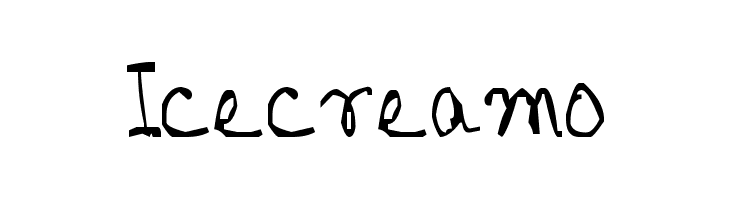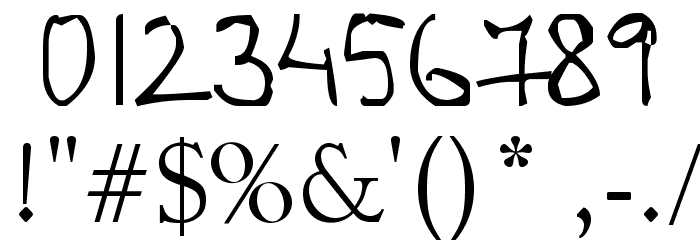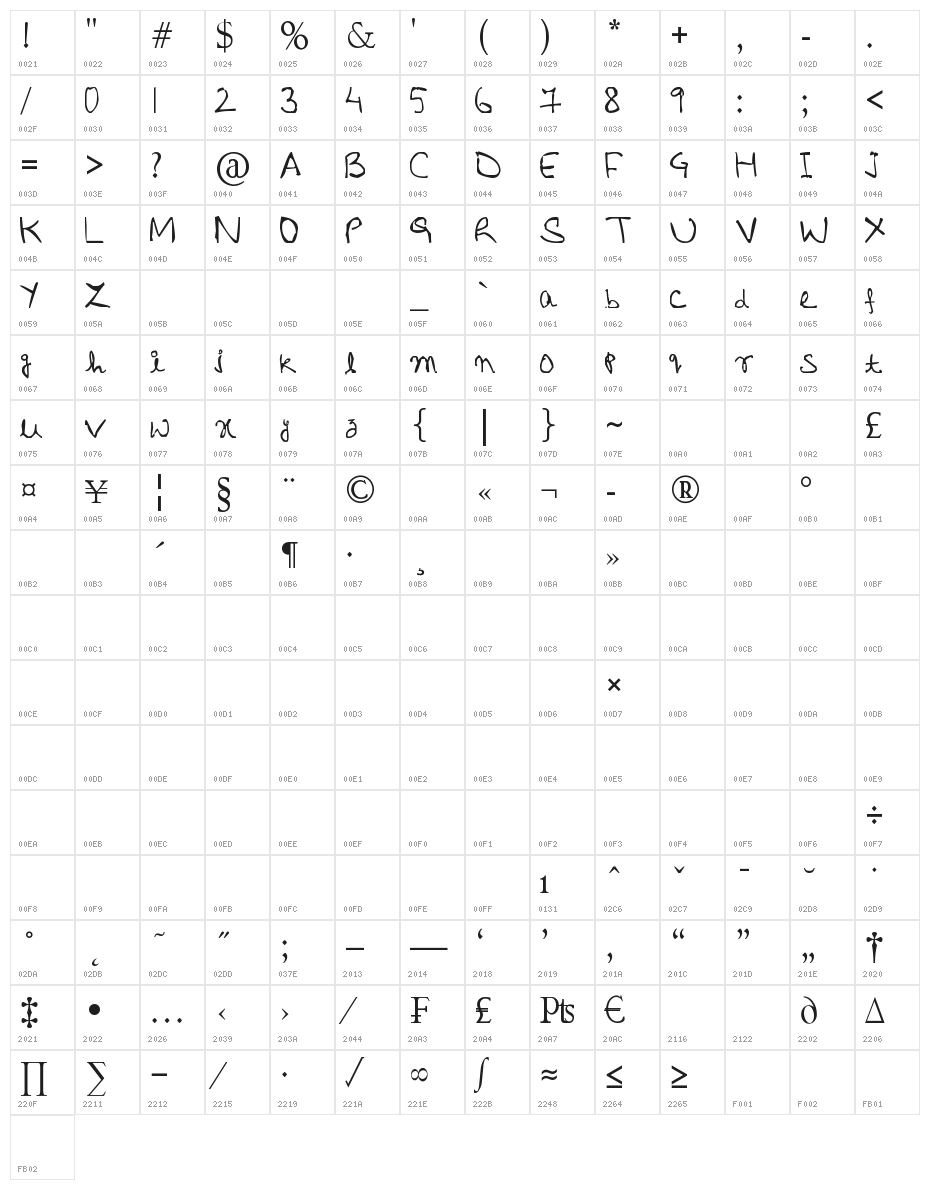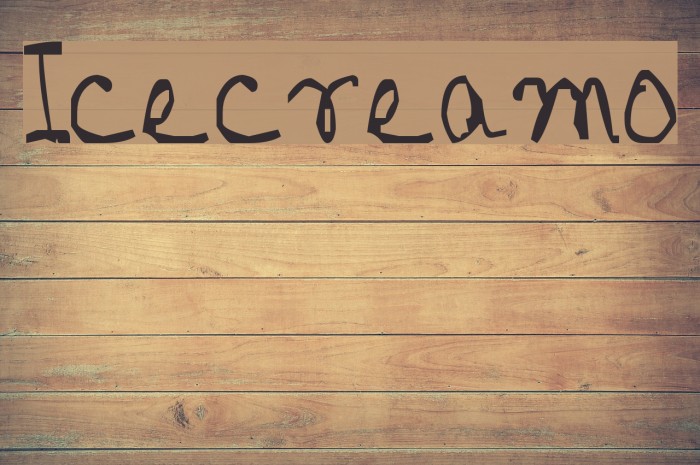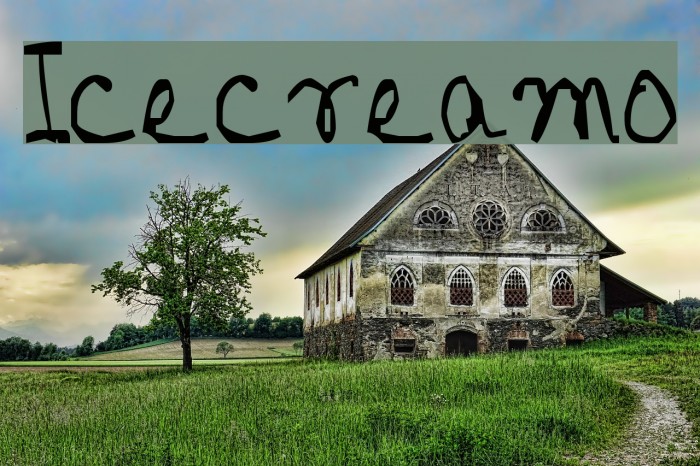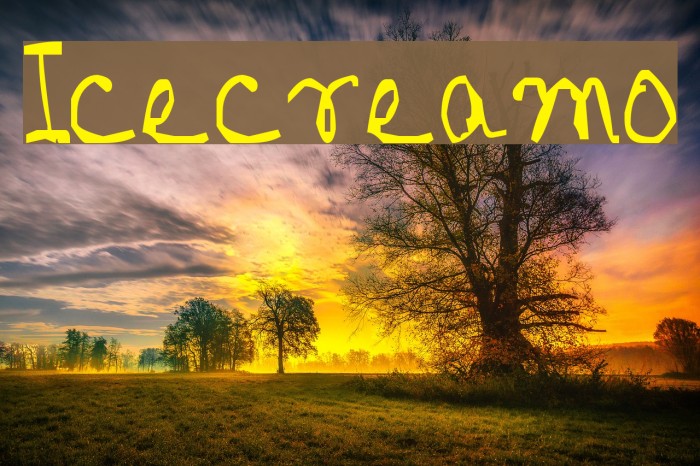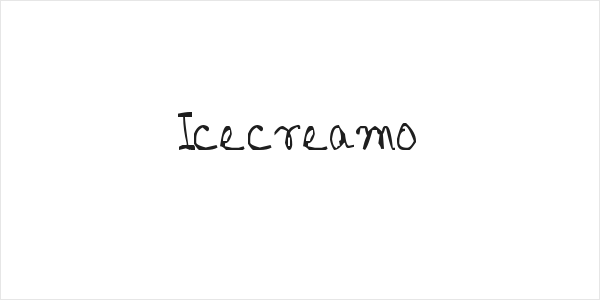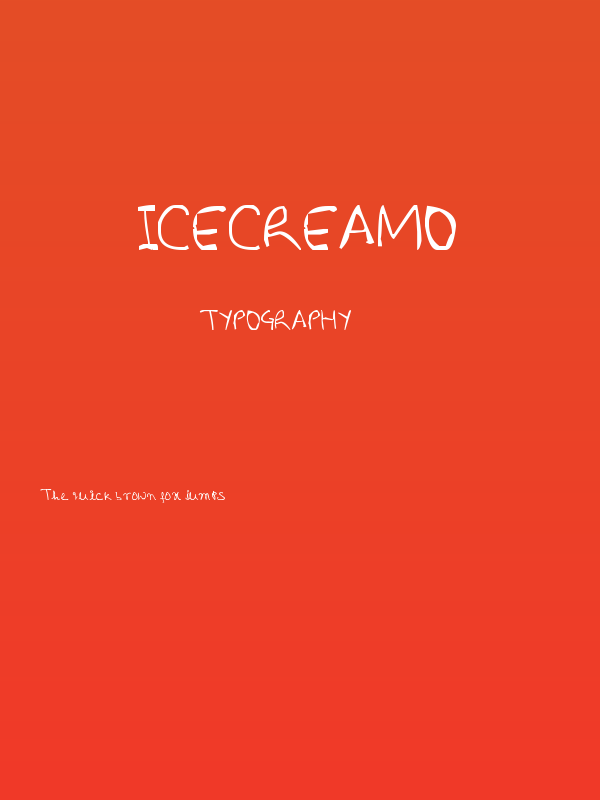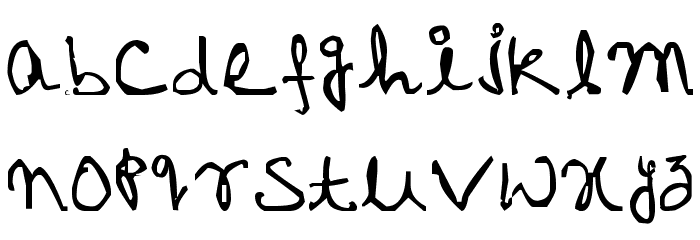
Icecreamo Font
Icecreamo Description
This playful and whimsical font features a handwritten style with a casual and informal appearance. The characters are slightly irregular, adding a touch of personality and charm. The strokes are uneven, giving it a dynamic and lively feel. The uppercase letters are bold and prominent, while the lowercase letters maintain a consistent flow. Numbers and special characters are designed with the same playful aesthetic, making it suitable for creative projects. The overall design is approachable and friendly, perfect for capturing attention in a fun and engaging way.